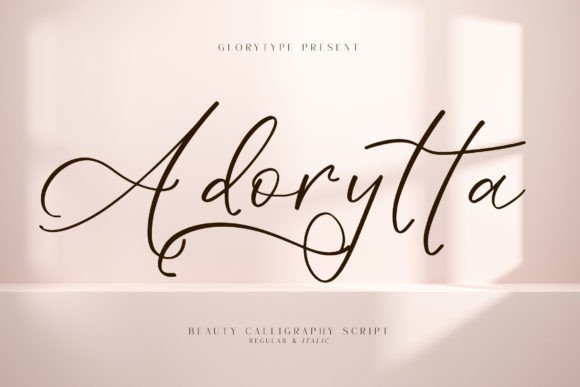
The Adorytta Font: A Delicate Gem for Your Designs
Have you ever been in the middle of a design project, and suddenly, you just can’t seem to find the right font? I recall a particularly frustrating experience while working on a client’s logo design. The client wanted something modern, elegant, and eye-catching, but I was stuck with a bland, generic font that just wasn’t cutting it. That’s when I stumbled upon the Adorytta font, and it completely transformed my design.
An Honest Review of Adorytta Font
The Adorytta font is a modern, delicate, and flowing handwritten font that has quickly become one of my go-to choices for various design projects. Here’s what I love about it:
- ✨ Delicate and elegant: Adorytta’s slender lines and curves add a touch of sophistication to any design.
- ✅ Highly versatile: This font is perfect for a wide range of projects, from mugs and t-shirt designs to logo creations and greeting cards.
- 💫 Cute and playful: Adorytta’s flowing script adds a whimsical touch that’s sure to capture your audience’s attention.
Of course, no font is perfect, and Adorytta has a few minor quirks:
- 🤔 Limited use in body text: Due to its delicate nature, Adorytta might not be the best choice for lengthy paragraphs or body text.
- ⚠️ Requires careful kerning: As with any script font, you may need to adjust the kerning to ensure optimal readability.
- Experiment with OpenType features, such as stylistic alternates and glyphs, to add more variety to your text.
The Story Behind Adorytta Font
Adorytta was designed with the intention of creating a beautiful, elegant script font that would add a touch of whimsy to any design. The designer aimed to craft a font that was both modern and timeless, with a delicate flow that would capture the eye. While the exact inspiration may be unknown, it’s clear that Adorytta was created with the designer in mind who wants to add a bit of magic to their work.
| Font Name | Adorytta Font |
| Author | Glorytype Studio |
| What type of designs is Adorytta best suited for? | Adorytta is perfect for designs that require a delicate, elegant touch, such as mugs, t-shirt designs, logo creations, greeting cards, and more. |
| Is Adorytta a difficult font to read? | Adorytta is a script font, and as such, it may be more challenging to read in large blocks of text. However, it’s perfect for short phrases, headings, and titles. |